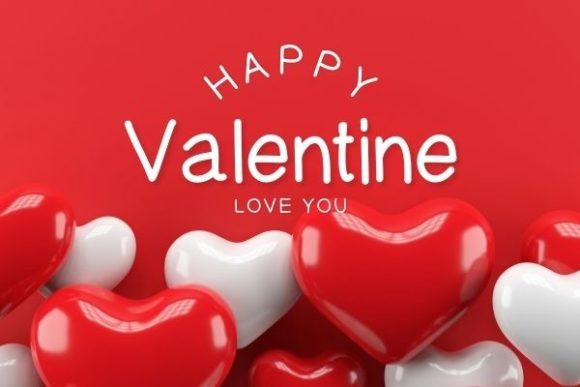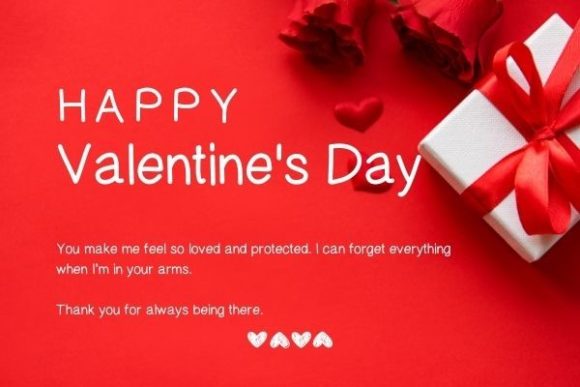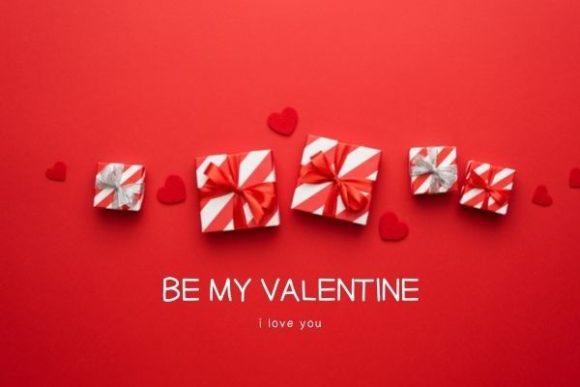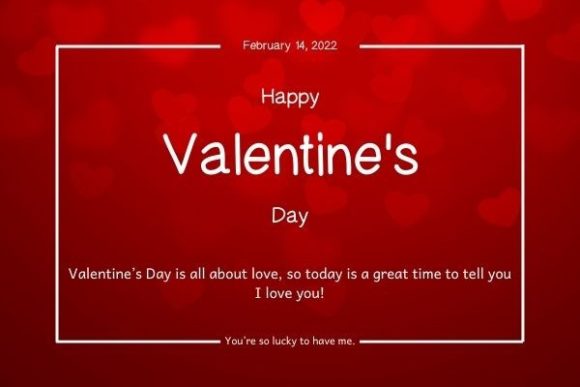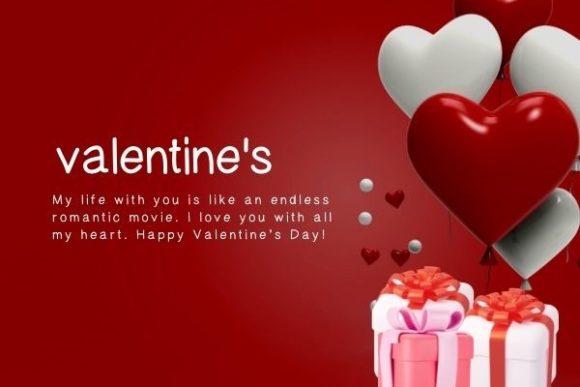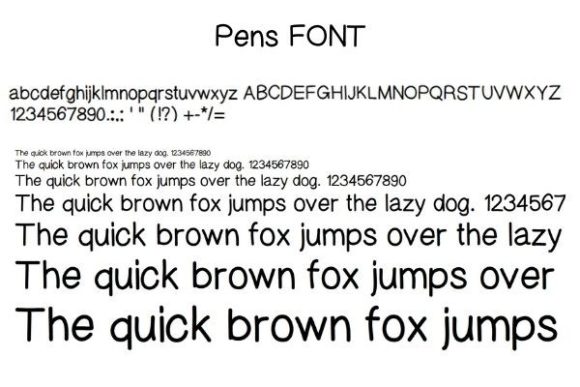
About Valentine Font
About Valentine is a clean and simple lettered handwritten font. Add it confidently to your favorite creations and let yourself be amazed by the outcome generated.